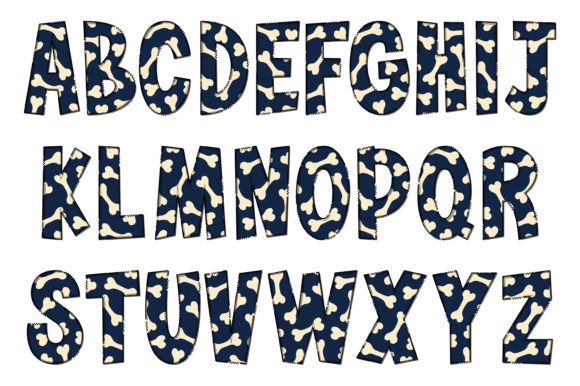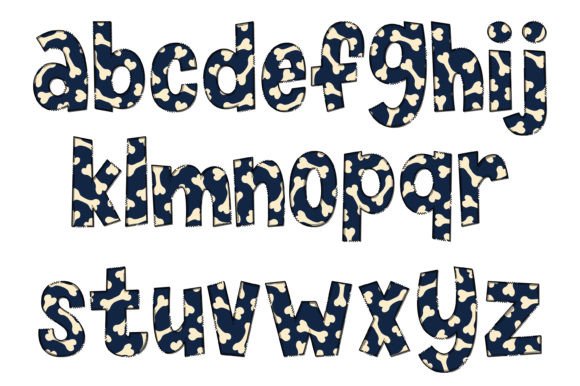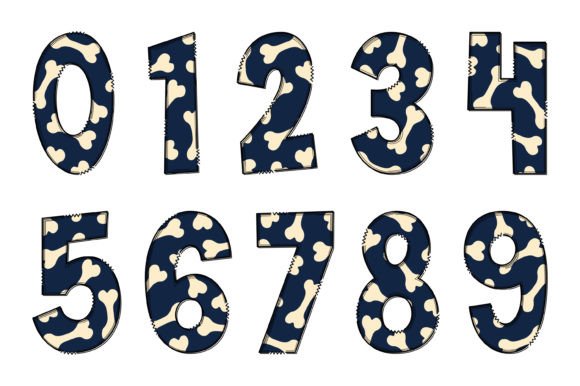
Bones Font: Add a Touch of Spookiness to Your Designs with this Whimsical Color Font
Are you looking for a font that can add a dash of fun and mischief to your designs? Look no further than Bones Font, a whimsical and playful color font that’s perfect for Halloween-themed projects, haunted house events, or any design that needs a touch of spookiness. With its cute skeletal characters, Bones Font is sure to bring a delightful and playful twist to your creative endeavors.
What is Bones Font?
Bones Font is a unique and eye-catching color font that features adorable skeletal characters. The font is designed to be playful and fun, making it perfect for designers and crafters who want to add a touch of whimsy to their projects. Whether you’re creating Halloween-themed decorations, haunted house invitations, or simply want to add a dash of fun to your social media graphics, Bones Font is the perfect choice.
Key Features of Bones Font
• Whimsical and Playful Design: Bones Font features cute and playful skeletal characters that are sure to bring a smile to your face.
• Color Font: Unlike traditional fonts, Bones Font is a color font that comes with a range of colors to add an extra layer of fun and visual interest to your designs.
• Perfect for Halloween-Themed Projects: With its spooky yet playful design, Bones Font is perfect for Halloween-themed projects, haunted house events, and other spooky celebrations.
Uses for Bones Font
Bones Font is a versatile font that can be used for a wide range of design projects, including:
• Halloween-Themed Decorations: Use Bones Font to create spooky yet fun decorations for Halloween parties, haunted houses, and other spooky celebrations.
• Social Media Graphics: Add a dash of fun and whimsy to your social media graphics with Bones Font.
• Invitations and Party Decorations: Use Bones Font to create invitations, party decorations, and other materials for birthday parties, Halloween parties, and other celebrations.
• Crafting Projects: Bones Font is perfect for crafters who want to add a touch of whimsy to their projects, such as scrapbooking, card making, and other paper crafts.
Tips for Using Bones Font
Here are some tips for using Bones Font in your designs:
• Experiment with Colors: Bones Font comes with a range of colors, so don’t be afraid to experiment and find the perfect color combination for your design.
• Mix and Match with Other Fonts: Bones Font can be paired with other fonts to create a unique and eye-catching design.
• Use for Headlines and Titles: Bones Font is perfect for headlines and titles, adding a touch of fun and whimsy to your design.
Bones Font is a unique and playful color font that’s perfect for designers and crafters who want to add a touch of spookiness and whimsy to their designs. With its cute skeletal characters and range of colors, Bones Font is sure to bring a delightful and playful twist to your creative endeavors. Whether you’re creating Halloween-themed decorations, haunted house invitations, or simply want to add a dash of fun to your social media graphics, Bones Font is the perfect choice.